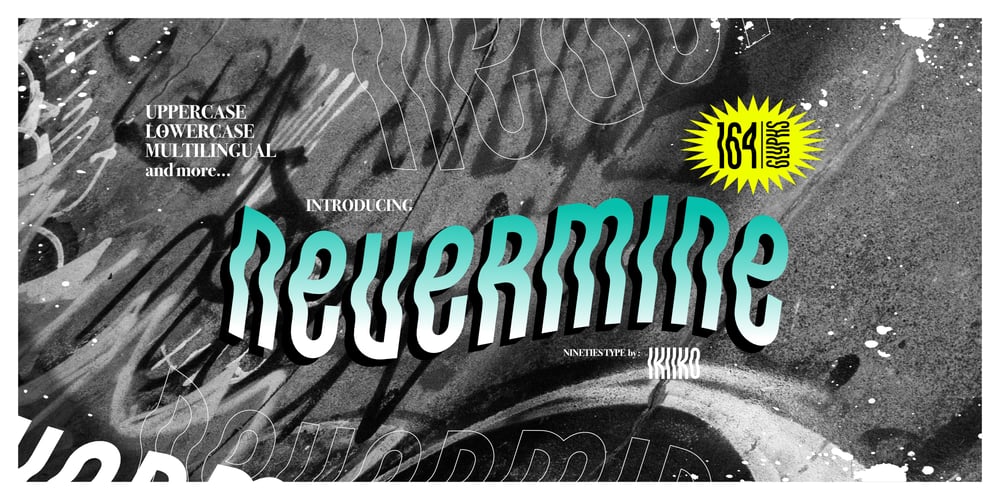
Nevermine Font Family was designed by Andhika Pradana and published by IKIIKOWRK. Nevermine contains 1 styles and family package options. Introducing Nevermine – Nineties Type, created by ikiiko.Is a solid & raw condensed typeface with unique shape of 90’s era. This typeface is perfect for an event poster, magazine cover, hipster fashion brand, t-shirt, tote bag, quotes, or stylish text overlay to any background image.What’s included? Uppercase & Lowercase Number & Punctuation Multilingual Support Works on PC & Mac Get also a good offer & FREEBIE at our site : www.ikiiko.comEnjoy our font and if you have any questions, you can contact us by email : ikiikowrk@gmail.com